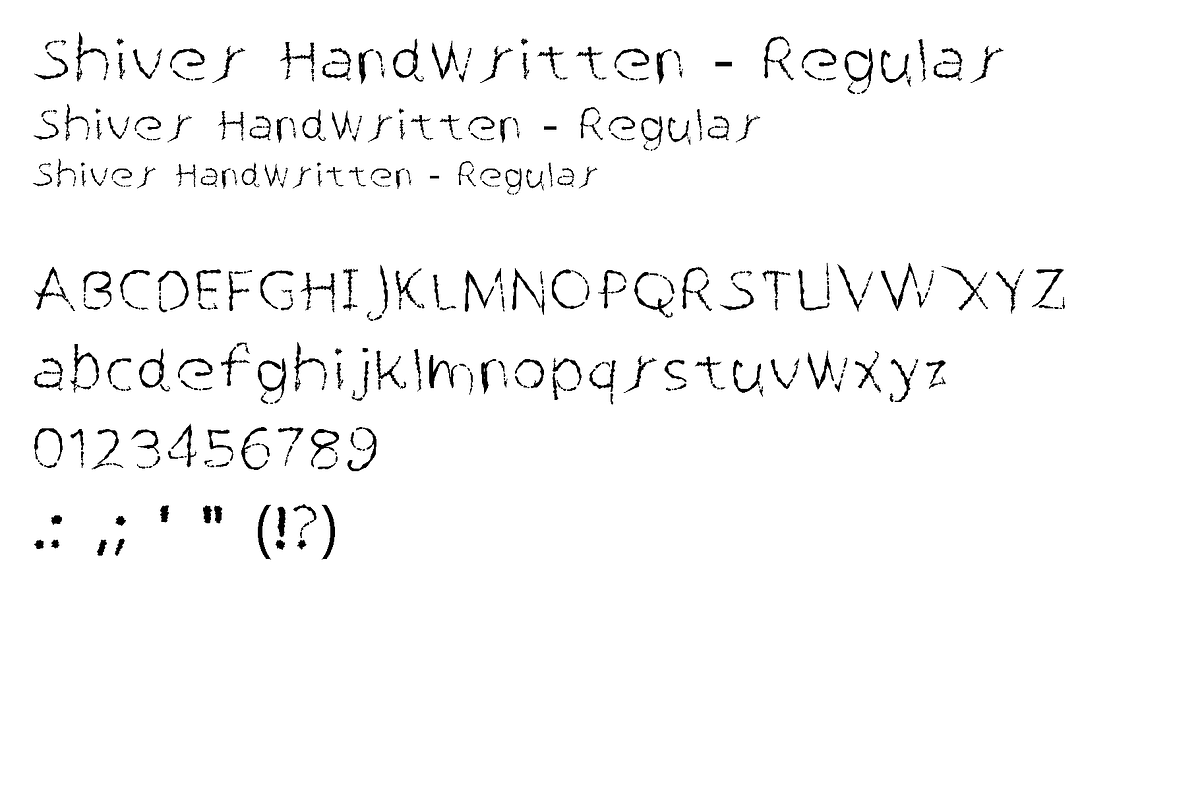
Shiver Handwritten - Regular
Shiver Handwritten Regular
Shiver Handwritten Regular is a casual, expressive handwritten font that exudes a natural and personal touch. Designed to mimic real handwriting, it features smooth, organic strokes with slight imperfections that add authenticity and character. The font is perfect for projects that require a warm, informal, or artistic feel, such as personal branding, invitations, social media graphics, and creative typography.